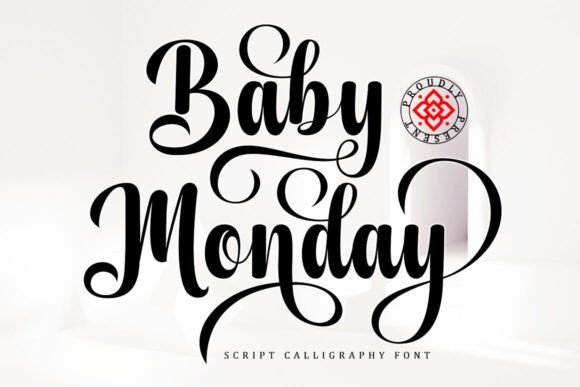
Baby Monday Font: Elegant Calligraphy Script for Wedding & Branding
About the Baby Monday Font
From logos to headlines, the Baby Monday Font is the perfect choice for making a lasting impression. Baby Monday is a very beautiful, elegant, and the best handwritten font. Expertly designed to be a true favorite, this font has the potential to take your creative ideas to the highest level!
The classic style is perfect for applying in various formal forms such as invitations, labels, restaurant menus, logos, fashion, makeup, stationery, novels, magazines, books, greeting/wedding cards, packaging, labels, or any type of advertisement for your needs.
Baby Monday Font Usage Examples